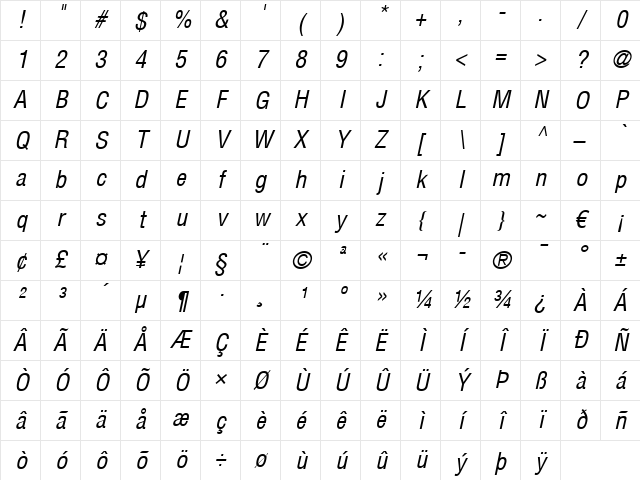
Helvetica LT Condensed Italic
Helvetica LT Condensed Family
Design Context for Helvetica LT Condensed
Helvetica LT Condensed is a composed and adaptable typeface that performs quietly and consistently across a wide range of design contexts. The slanted form adds forward momentum and visual energy. Its slender proportions lend an understated elegance to any composition. Its narrow stance lets it pack a punch even in space-constrained designs.
Pro Tip: Use Helvetica LT Condensed for emphasis, pull quotes, and subheadings where its slanted energy can add rhythm to the layout.